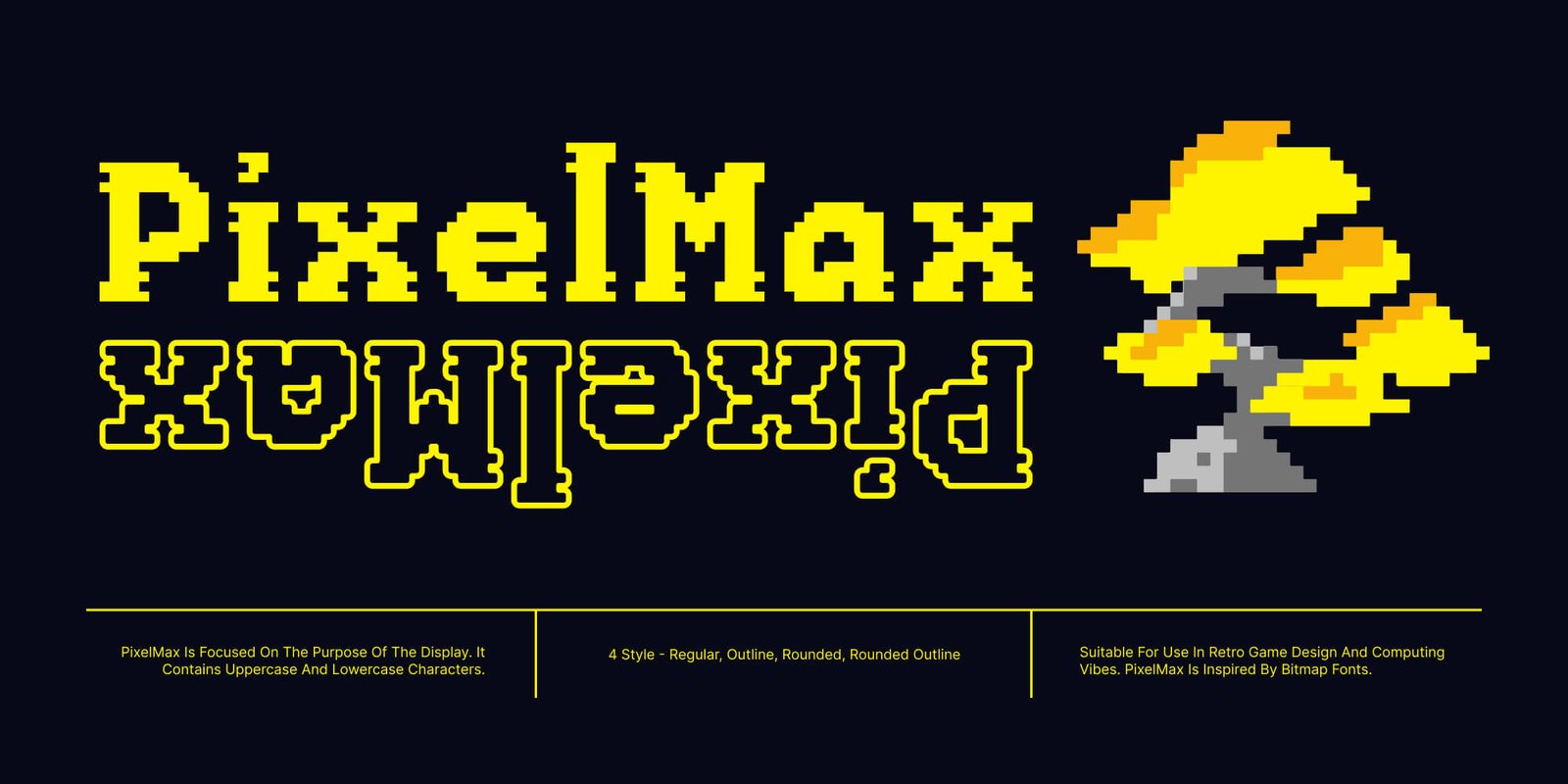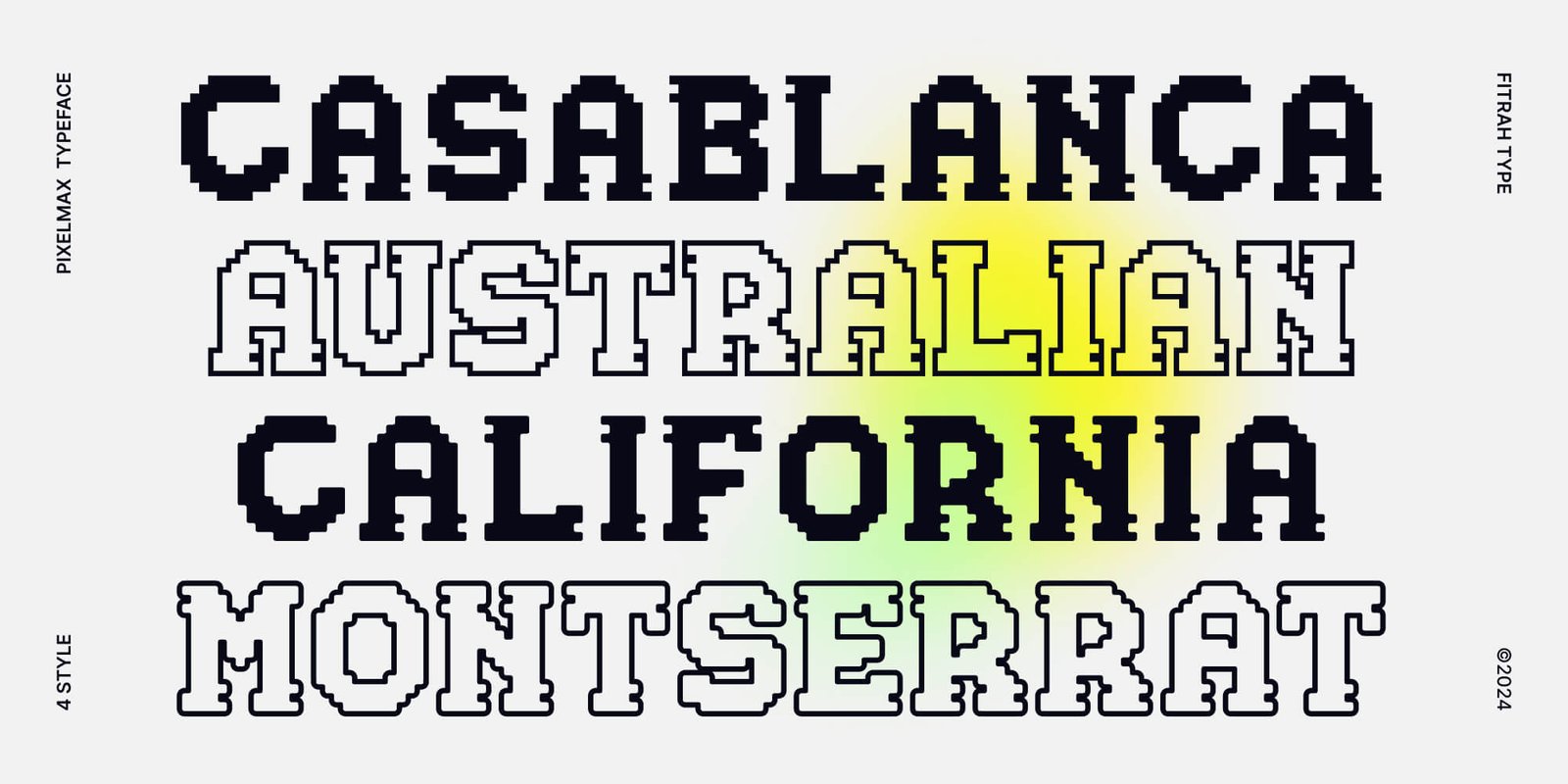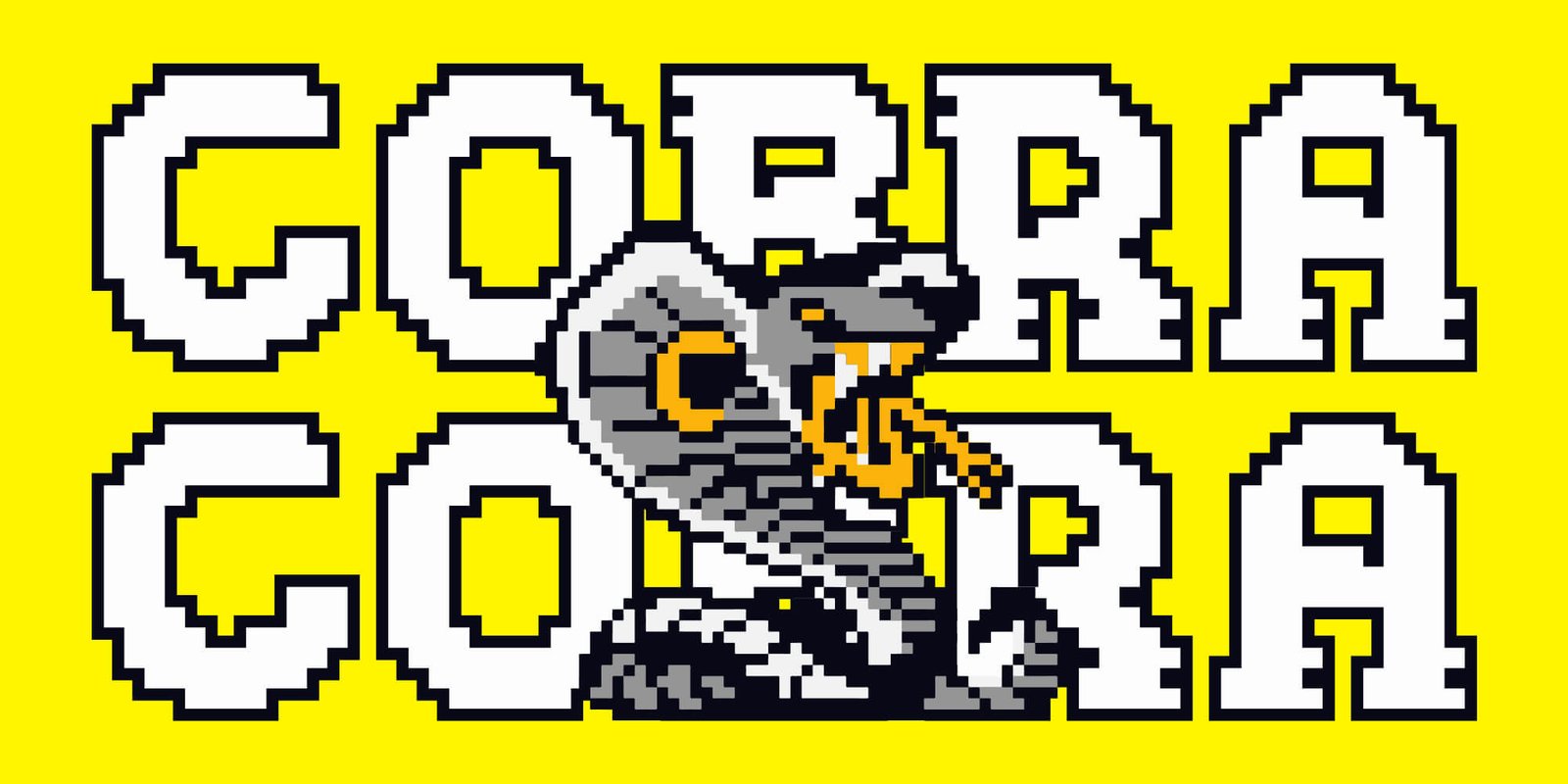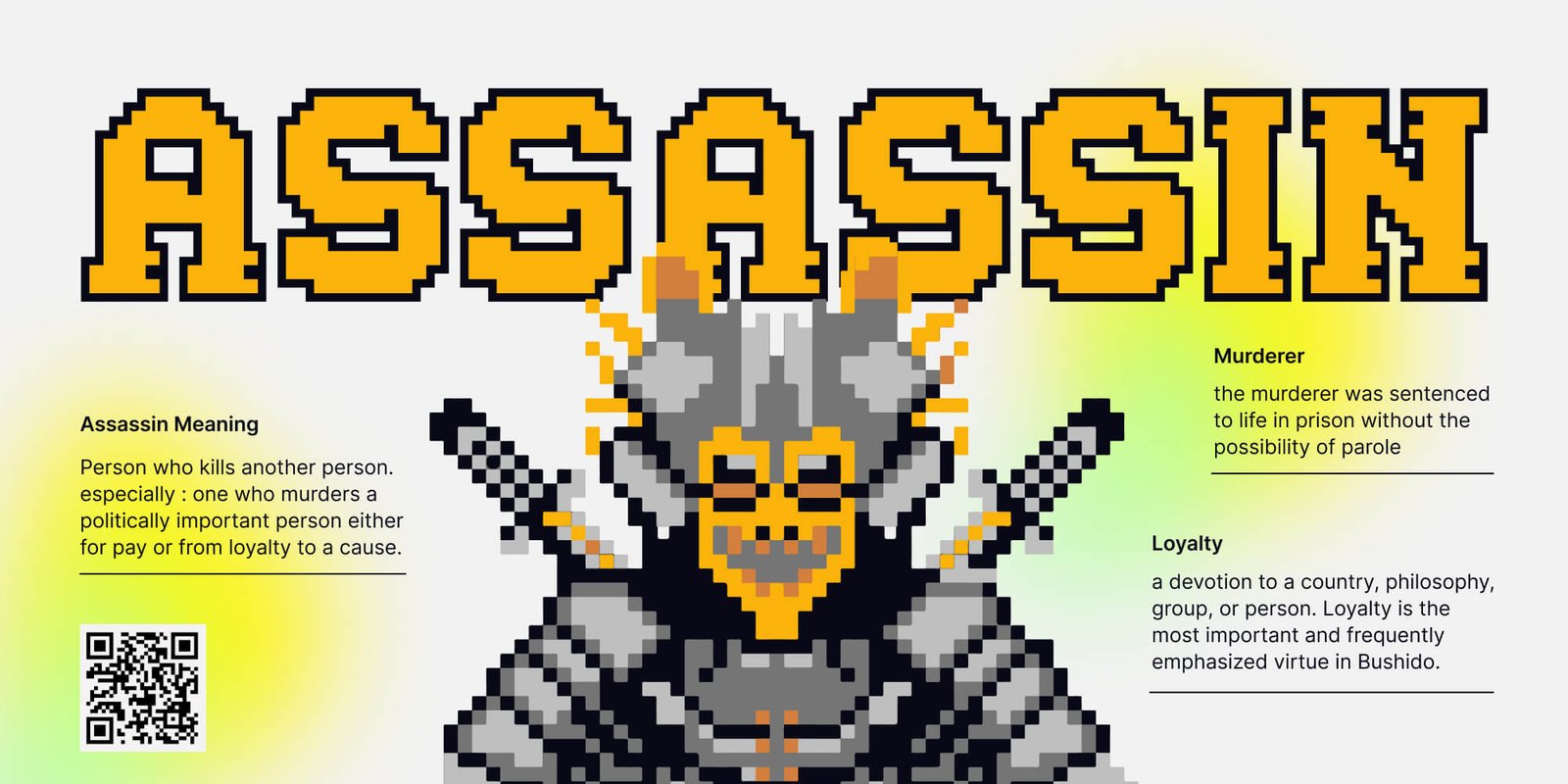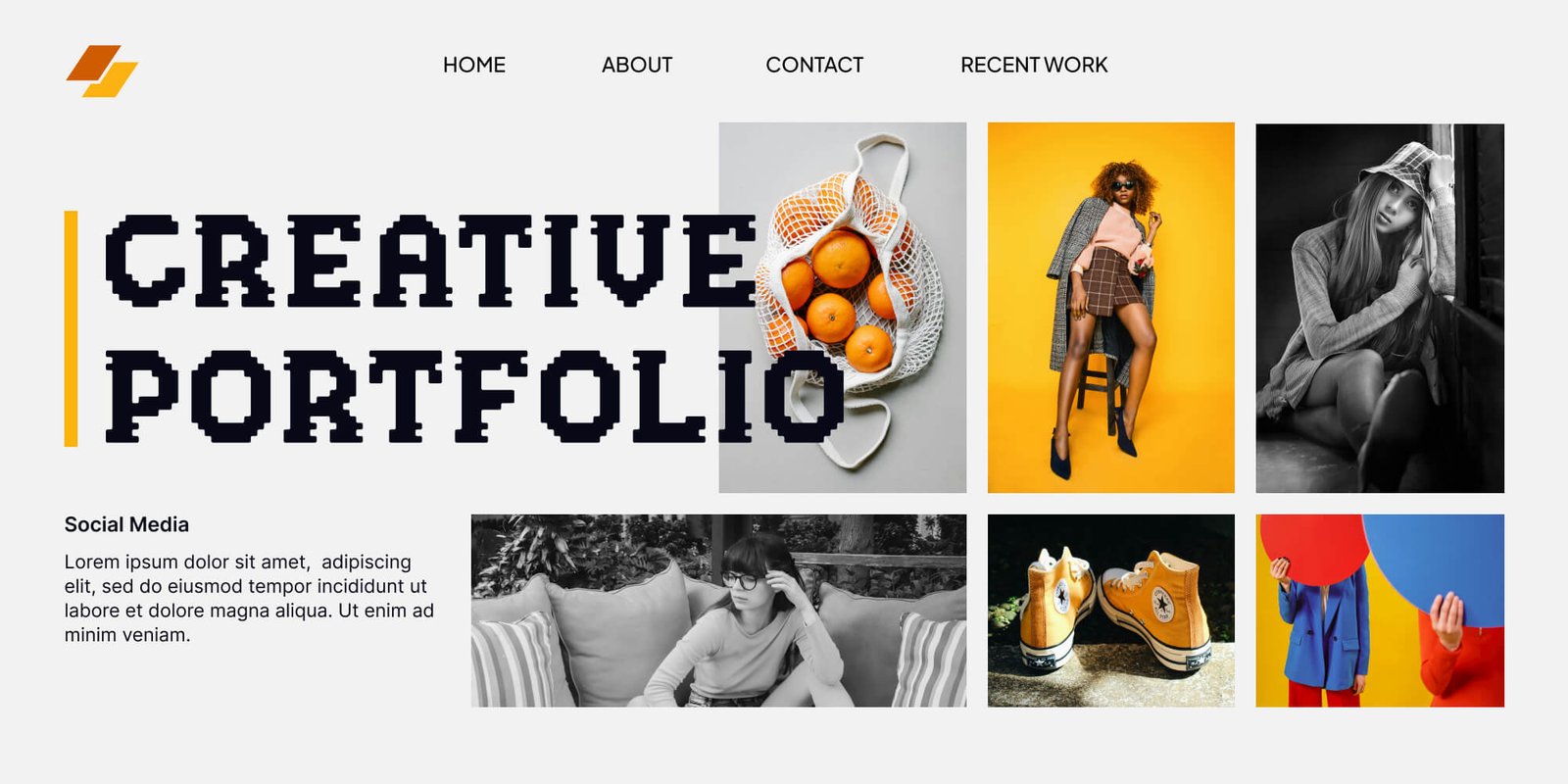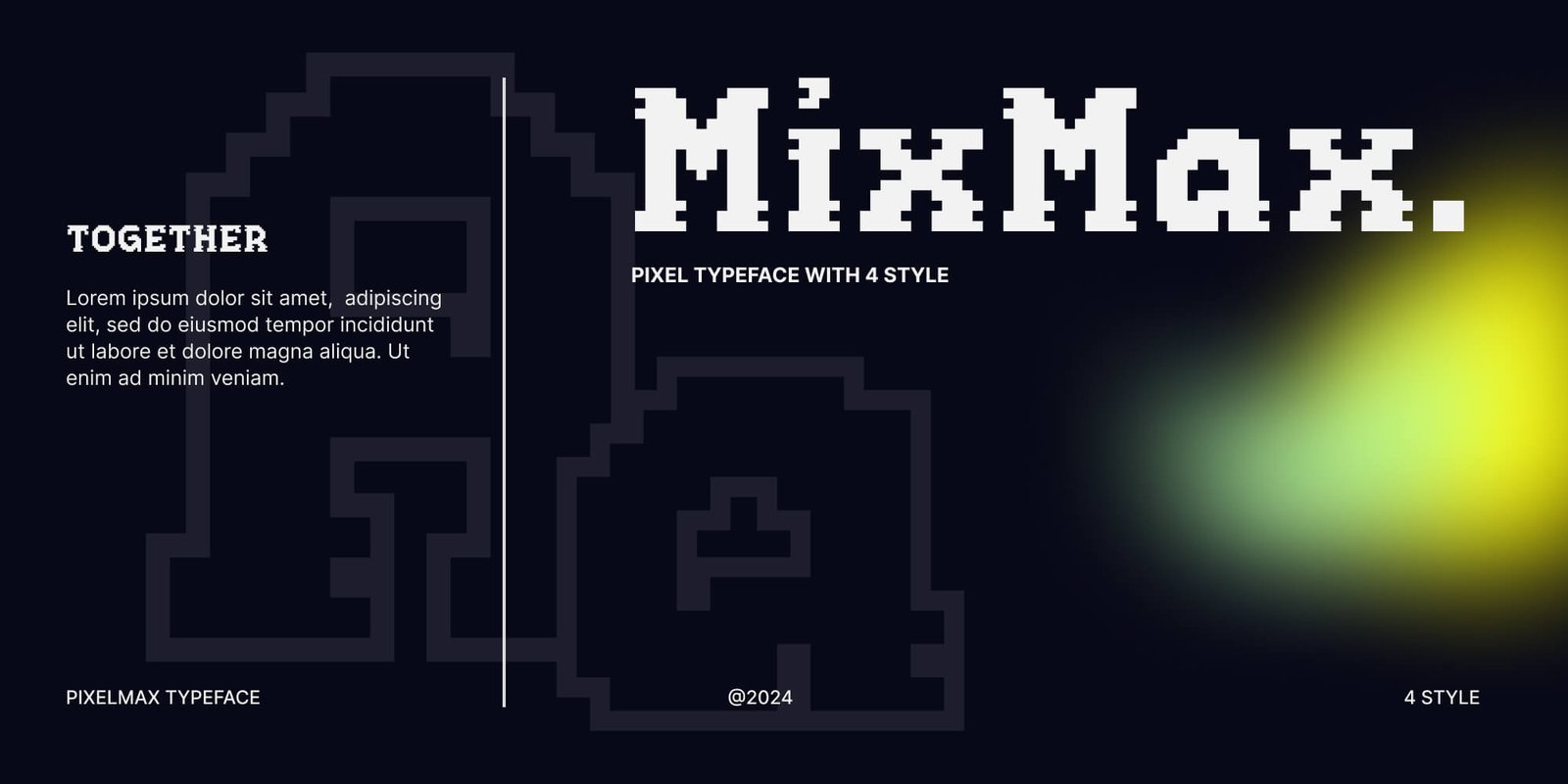
PixelMax is a typeface designed with clarity and purpose, built specifically for display use. Featuring both uppercase and lowercase characters, it stays true to the essence of classic bitmap fonts while adding a refined touch for modern applications. Perfect for retro game design, computing aesthetics, and nostalgic digital interfaces, PixelMax captures the pixel-perfect charm of early screen typography. Whether used for arcade-style branding, UI elements, or futuristic throwback designs, this typeface delivers a crisp and authentic pixelated look with versatility and readability in mind.